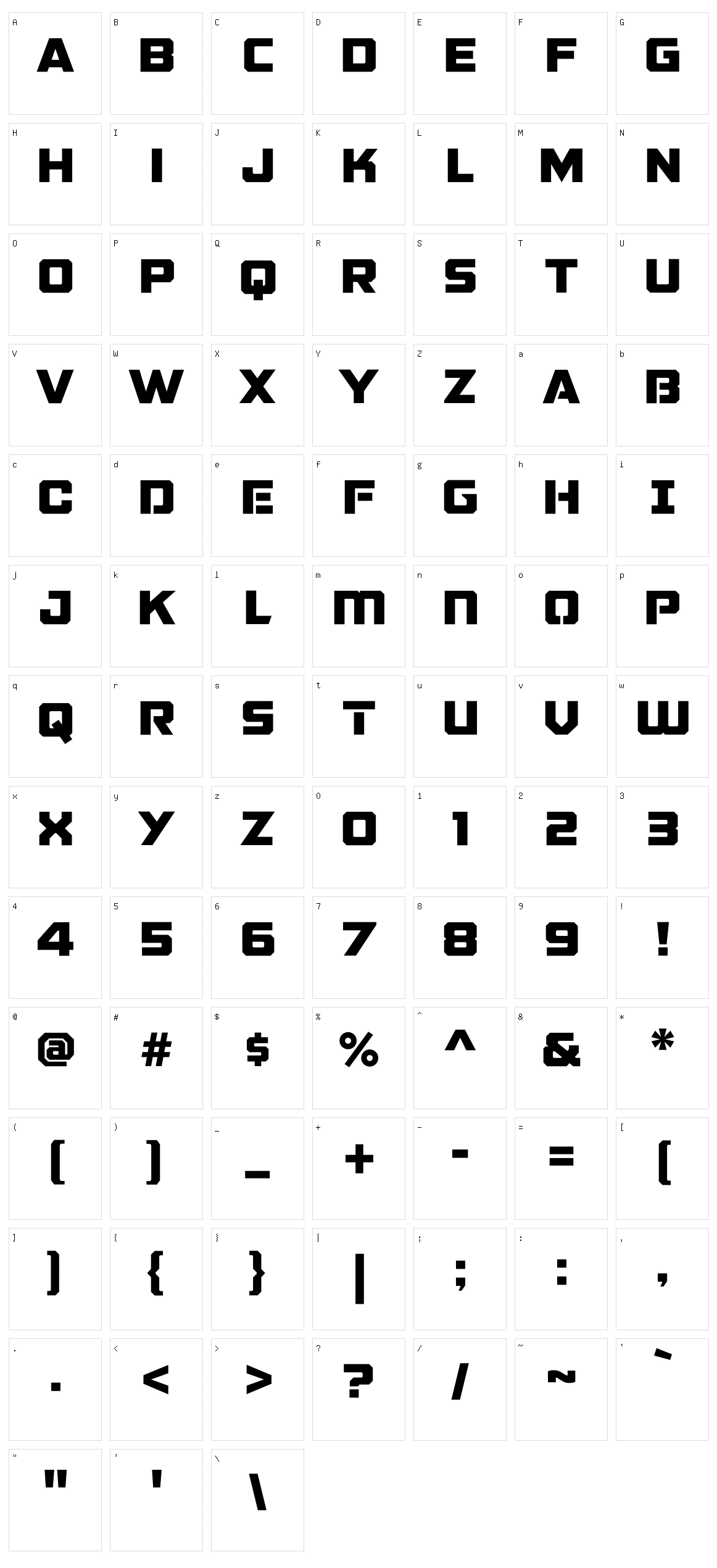
Galactic Vanguardian
The celluloid has been minted -- digitally of course -- flora and fauna are speaking, even walking. The galaxy is a wide-open space, a collection of mysterious beings and celestial things capable of destroying entire worlds. The guardians are coming to save the day. Entering stage right is the latest Fontry offering to add its weight in an ongoing typographical battle that will span the stars, GALACTIC VANGUARDIAN NCV (non-commercial version). OpenType Feature replacements included at no extra charge.